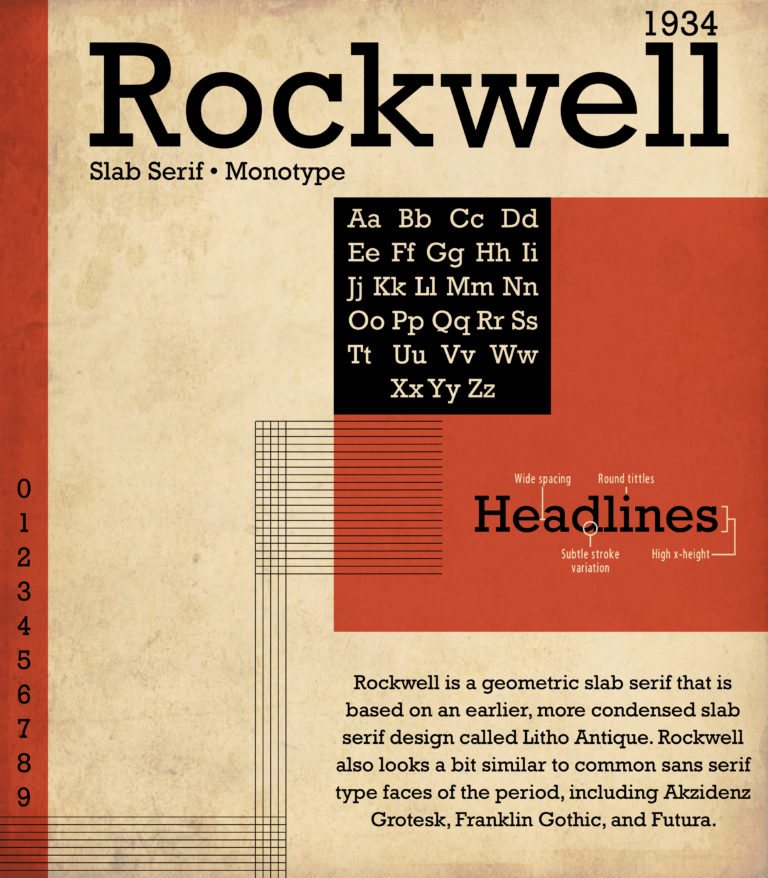
Font of the Week — Rockwell
Rockwell is a Monotype font created by Frank Hinman Pierpont in 1934. Rockwell was in part inspired by a font created twenty years earlier, Litho Antique. Rockwell’s most recognizable letter is the “Qq” with it’s lengthy tail making it quite recognizable. Why might you recognize Rockwell? It’s used in the IBM and Heineken logos.